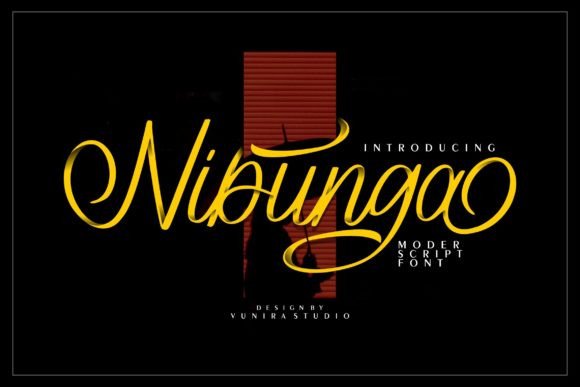
Discover the Enchanting Nibunga Font: Your Passage to Creative Expression
Enter the realm of Nibunga, a script font that dances across your designs with the grace and charm of a handwritten masterpiece. Crafted with the utmost care by the skilled designers at Vunira, Nibunga is more than just a font; it's an artistic journey that transforms your creations into works of art.
With its elegant calligraphic flair, Nibunga dances across your canvas, adding a touch of sophistication and individuality to your branding materials, business cards, and posters. It's the perfect choice for fashion brands seeking to infuse their designs with a timeless, yet modern aesthetic.
Step into the world of Nibunga and embark on a creative adventure where your imagination knows no bounds. Let the flowing lines and graceful curves of this script font carry your designs to new heights, capturing the attention of your audience and leaving a lasting impression.
Nibunga's versatility shines through its ability to adapt to a wide range of creative projects. From invitations that exude warmth and elegance to greeting cards that convey heartfelt messages, Nibunga becomes a storyteller, weaving your words into visual tapestries that resonate with your audience.
Dive into the world of Nibunga and unlock the endless possibilities of creative expression. Embrace the allure of this script font and watch as your designs blossom into works of art that captivate and inspire. Let Nibunga be your creative muse, guiding you along a path of originality and distinction.
Artistic Expression Unbound :
Nibunga is more than just a font; it's a gateway to artistic liberation. Unleash your creativity and embark on a journey where your designs take center stage. Allow Nibunga's graceful strokes to infuse your creations with a touch of elegance and charm, transforming them into visual masterwork that demand attention.
Dare to be different and embrace the beauty of Nibunga. Let your brand's identity shine through with a font that reflects your unique vision. From fashion labels seeking to make a statement to creative entrepreneurs desiring a touch of sophistication, Nibunga is the perfect companion, adding a touch of magic to your every endeavor.